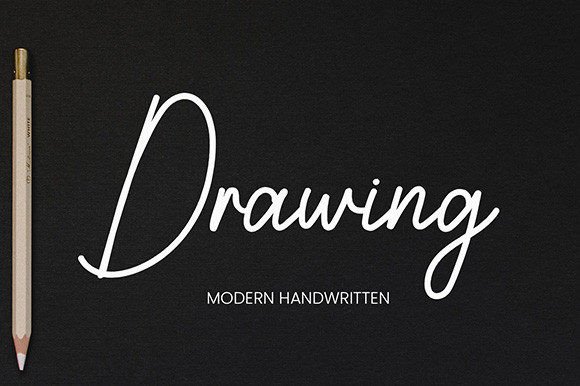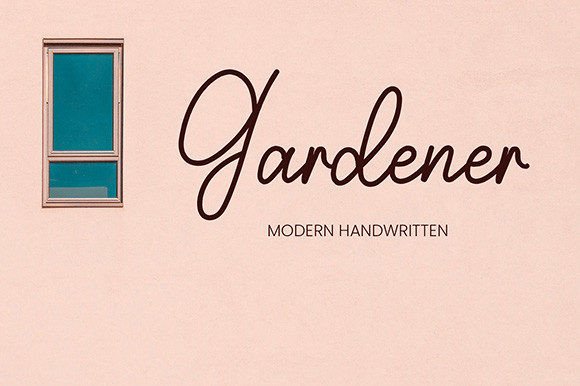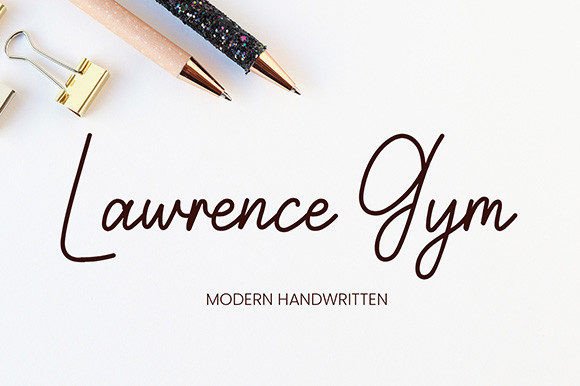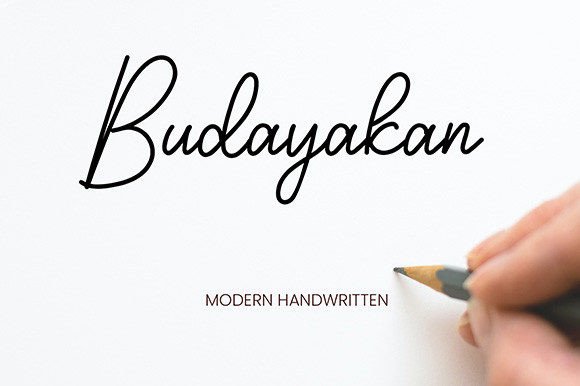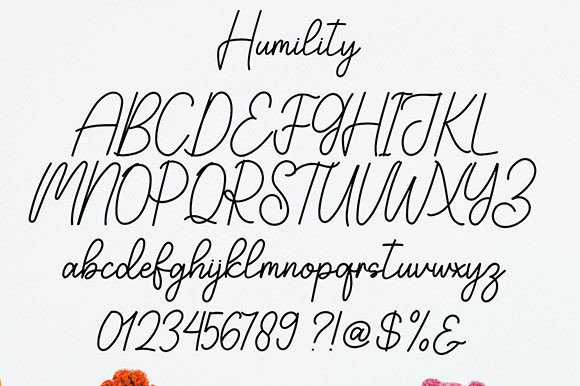
Humility Font
An Exquisite and Elegant Handwritten Script
Humility is a beautifully crafted handwritten font designed to add elegance and refinement to your creative projects. Each letter features smooth curves and balanced strokes that feel polished and timeless. The style blends classic calligraphy with a modern touch, making it perfect for designs that need to feel sophisticated and fresh at the same time.
Whether you’re working on professional branding or personal stationery, Humility helps your text look unforgettable.
Humility is a versatile font that adapts effortlessly to a wide range of uses. It’s ideal for wedding invitations, save-the-date cards, and event signage. The graceful script brings a romantic feel to every piece.
Use Humility for logos, brand identities, and business cards. The elegant shapes create a lasting impression while keeping your brand approachable and stylish.
This font also shines on product packaging, boutique labels, and handmade goods. The refined details elevate your designs and help them feel premium.
Humility is perfect for social media graphics, blog headers, and Pinterest pins. No matter where you use it, the font delivers a classy, modern look that stands out.
The font includes uppercase and lowercase letters, numbers, and punctuation marks. Ligatures are included so your text flows naturally and looks cohesive.
Clear, Refined, and Easy to Read
Even with its decorative character, Humility stays clear and legible at any size. Balanced spacing between letters keeps your text neat, whether you’re creating big headlines or small captions.
Many designers pair Humility with a clean sans-serif font for contrast. Use Humility for titles and the sans-serif for supporting text. This combination guides the reader’s eye and helps layouts look modern and organized.
To highlight Humility’s graceful style, use neutral backgrounds and soft color palettes. Shades like ivory, blush, and pale gray let the smooth curves stand out without distraction.
When designing wedding materials or upscale branding, consider adding delicate illustrations or watercolor textures to enhance the romantic feel. For social media and marketing, keep layouts simple so the script remains the focus.
Think about the mood you want to create. Humility is perfect for designs that should feel refined, warm, and timeless.
Humility is more than just a handwritten script. It’s a creative tool that turns simple text into something memorable. Its clean lines and elegant details bring beauty and sophistication to any project.
Adding Humility to your font collection gives you a reliable option for all kinds of creative work. From weddings and branding to packaging and social media, this font adapts effortlessly to your ideas.